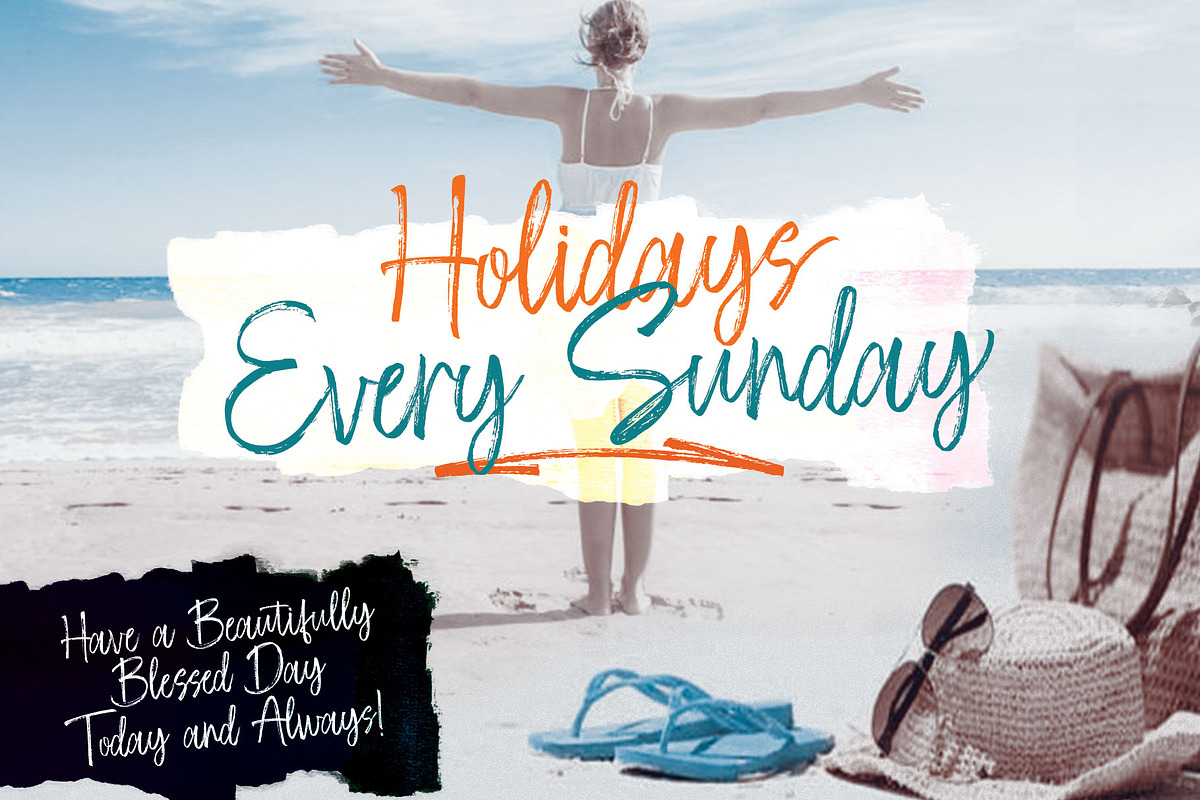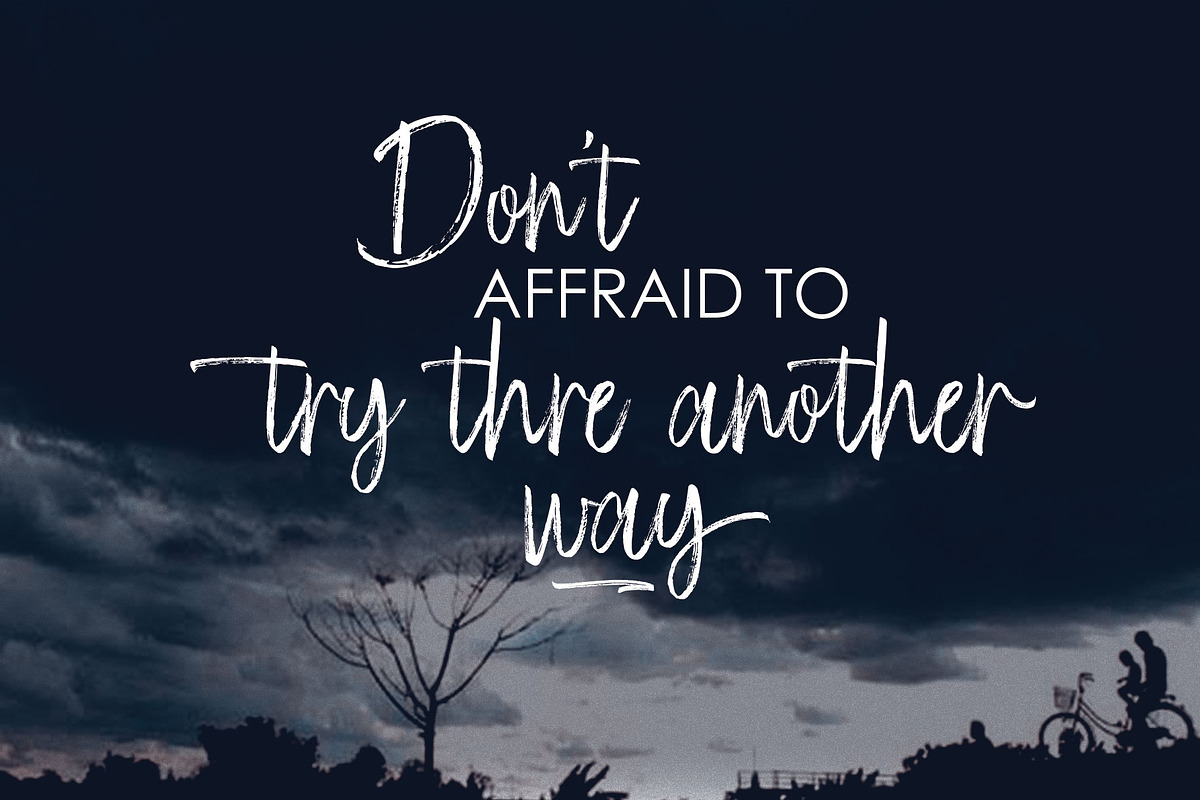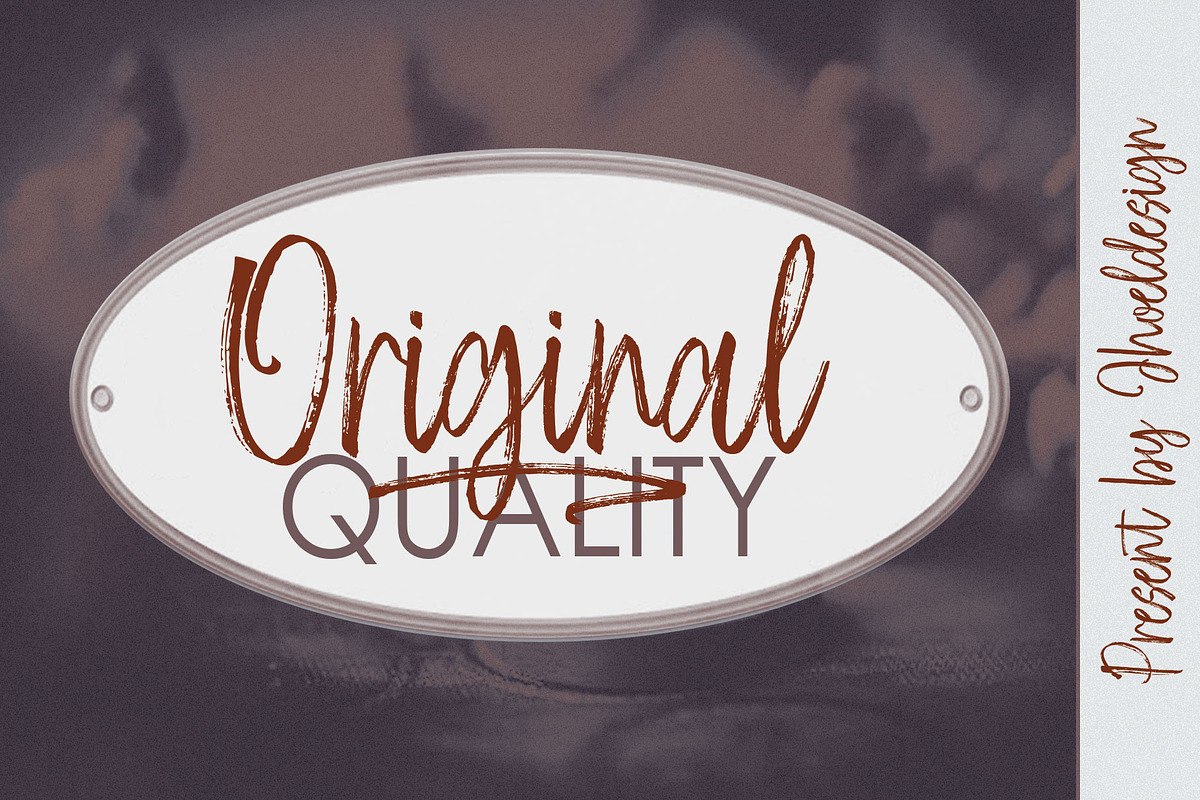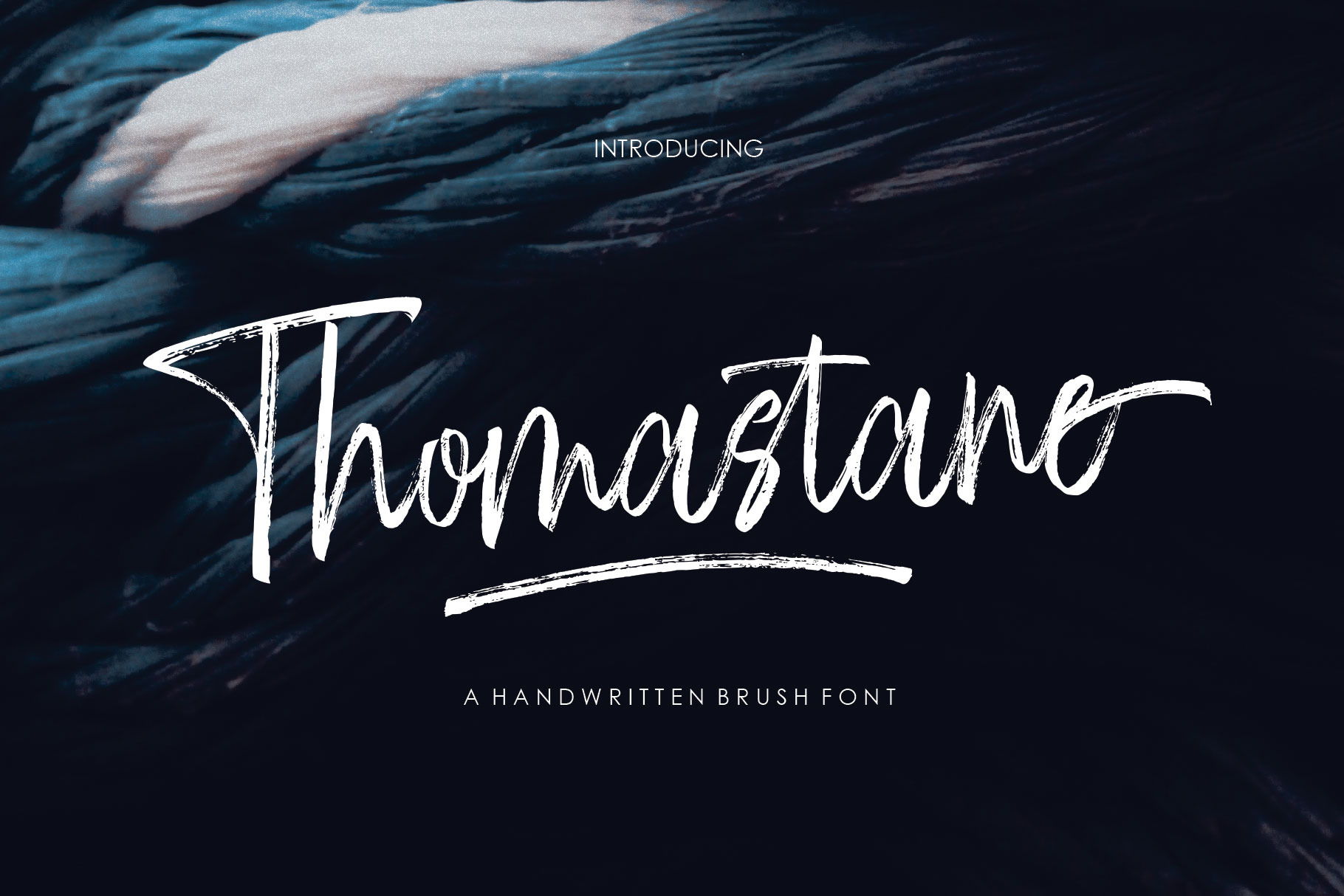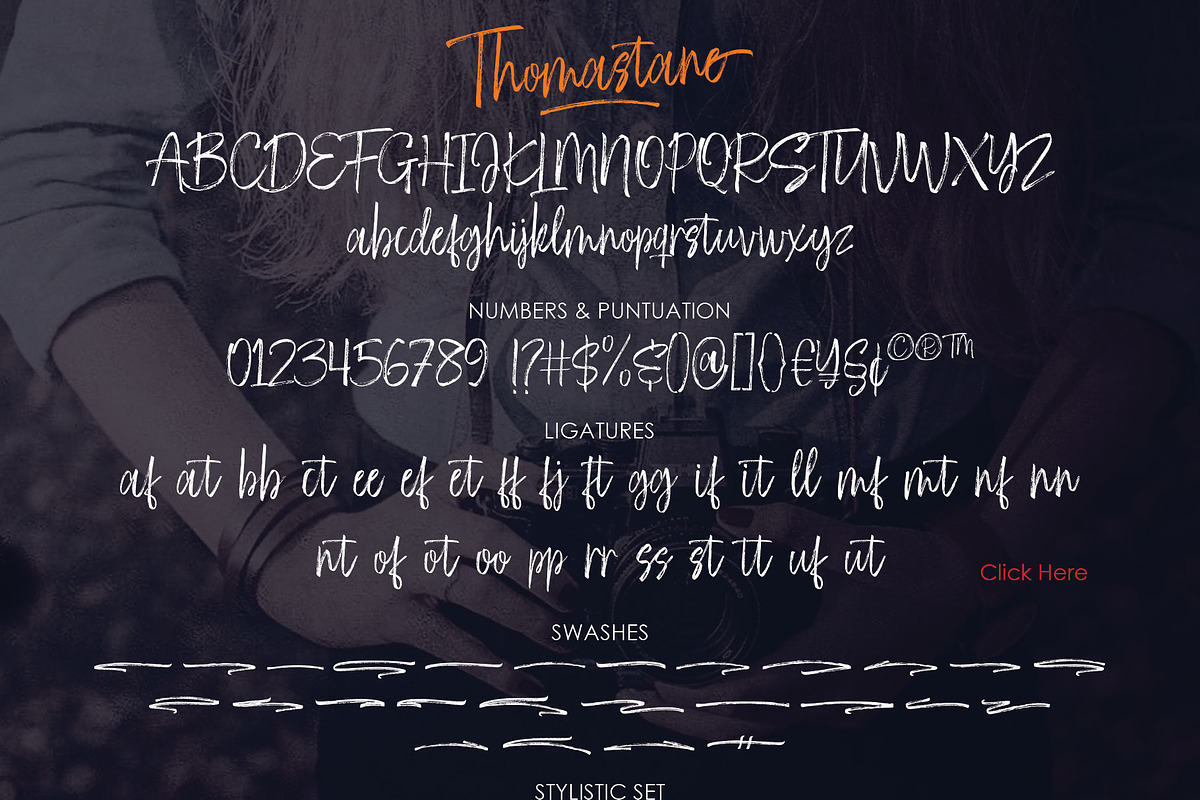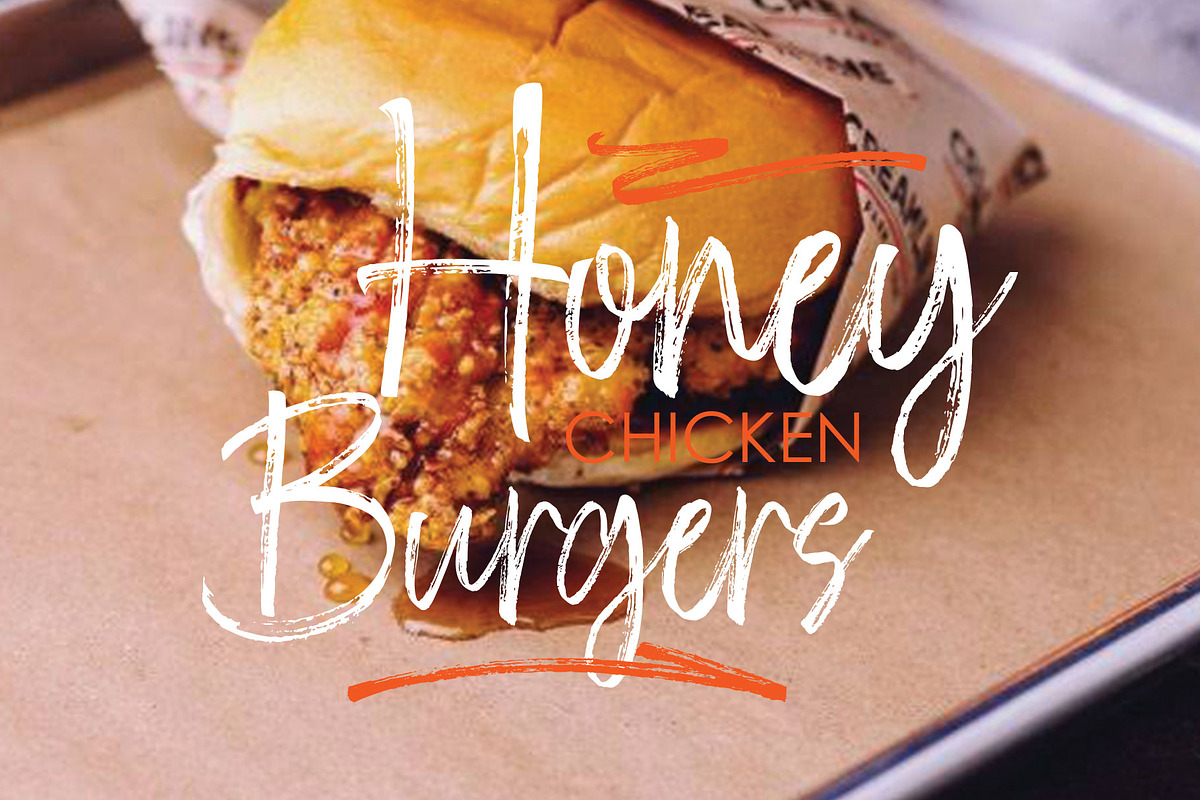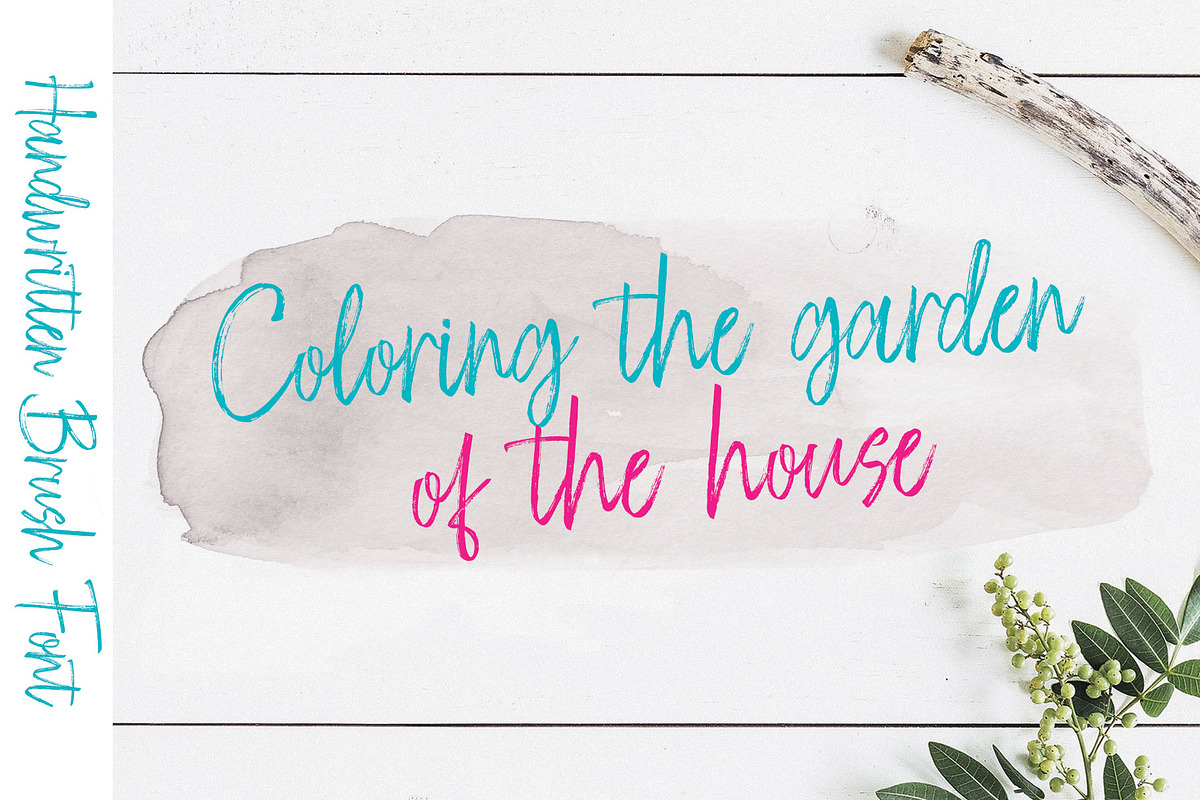
Thomastane Font
Introducing Thomastane - Handwritten Brush Font
Thomastane is a natural handbrused font, this font Is perfect for logo, invitation, stationery, wedding designs, social media posts, advertisements, product packaging, product designs, label, photography, watermark, special events or anything.
Thomastane includes the full set of upper and lower case letters, numbers, punctuation, and multilingual support. Also included standard ligatures, stylistic set, and swashes.